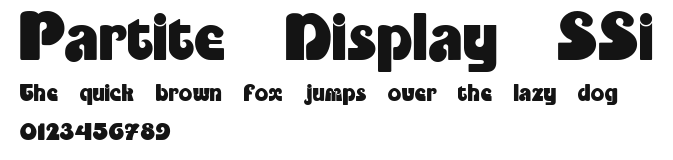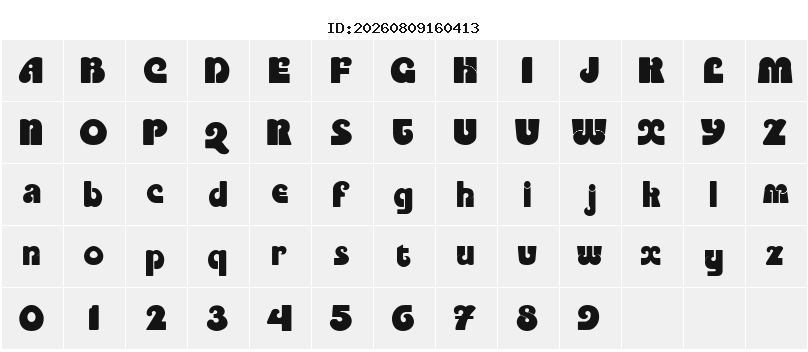
• Font Name: Partite Display SSi
• Full Font Name: Partite Display SSi
About Partite Display SSi.ttf
Partite Display SSi.ttf is a modern, elegant sans-serif font designed for ultimate readability and visual harmony. Perfect for branding, headlines, web design, and print materials.